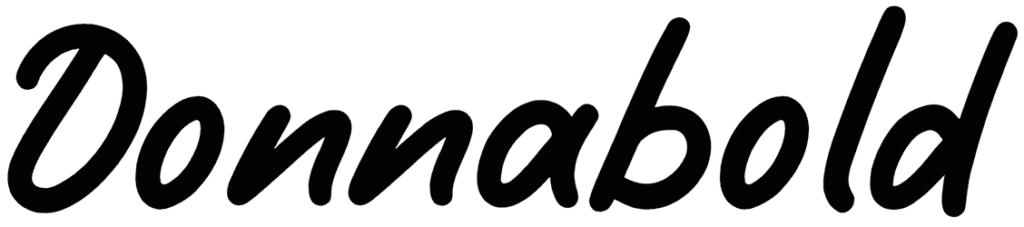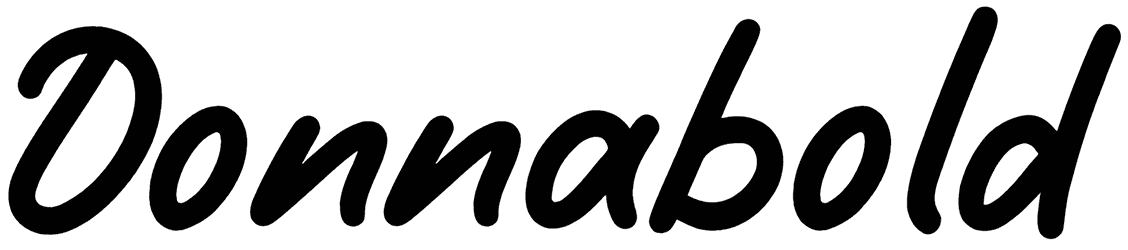
Donnabold Font
Having a suitable font like Donnabold is the main requirement for designing sturdy and timeless graphic content. This script font comes with angular letters and looks marvelous on posters, web page templates, invitations, and gift cards.